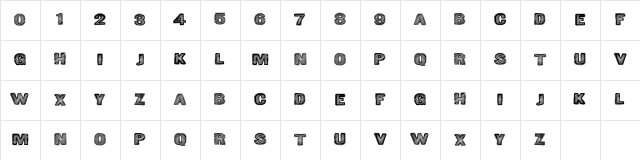
Complete GreatShake Regular glyph index. Displaying only characters natively supported by GreatShake Regular font.
GreatShake is a composed and adaptable typeface that performs quietly and consistently across a wide range of design contexts.